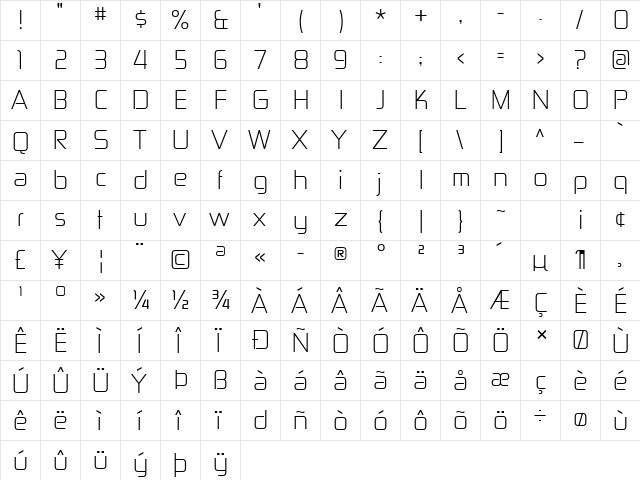
Zekton Lt Regular Font Preview
Zekton Lt Regular
Design Context for Zekton Lt Typeface
Zekton Lt is a composed and adaptable typeface that performs quietly and consistently across a wide range of design contexts. The delicate stroke weight brings airiness and refinement to layouts.